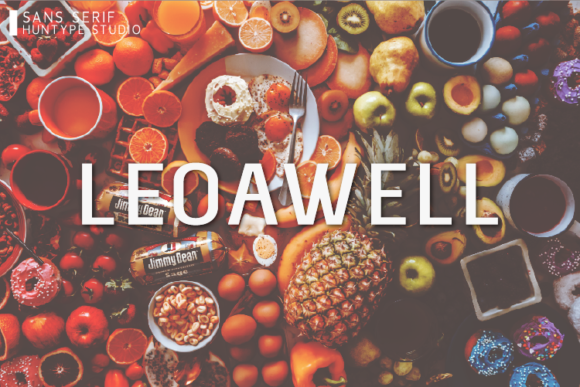
Leoawell Font
Introducing Leoawell Font, the epitome of sophistication and versatility. This captivating sans serif typeface is meticulously crafted by Huntype, a renowned foundry with an unwavering commitment to typographic excellence.
Leoawell's clean lines and understated elegance lend it an air of timeless appeal. Each meticulously shaped letterform exudes an inherent grace that effortlessly elevates any design project, imbuing it with an undeniable allure. Its inherent versatility seamlessly adapts to a myriad of applications, making it the perfect choice for discerning designers seeking a font that transcends the ordinary.
Immerse yourself in the world of Leoawell and unlock a universe of creative possibilities. Its versatility knows no bounds, effortlessly complementing a diverse range of projects. Let Leoawell be your font of choice for captivating magazine layouts, where its crisp and legible characters will guide readers effortlessly through your captivating narratives. Unleash your creativity in the realm of branding, where Leoawell's understated elegance will elevate your brand identity, leaving an indelible mark on your audience's minds.
Whether you're crafting elegant invitations or injecting a touch of sophistication into your website design, Leoawell is your trusted companion, ready to transform your vision into a tangible masterpiece. Its adaptability extends to both print and digital realms, ensuring that your designs captivate attention on any platform.
With Leoawell, you'll experience the transformative power of typography firsthand. Its understated beauty and remarkable versatility will empower you to create designs that resonate deeply with your audience, leaving a lasting impression that transcends time.
Don't let your creative endeavors be confined by mundane fonts. Embrace the allure of Leoawell and watch as your designs blossom into extraordinary works of art. Unleash your imagination and embark on a typographic journey where creativity knows no limits.